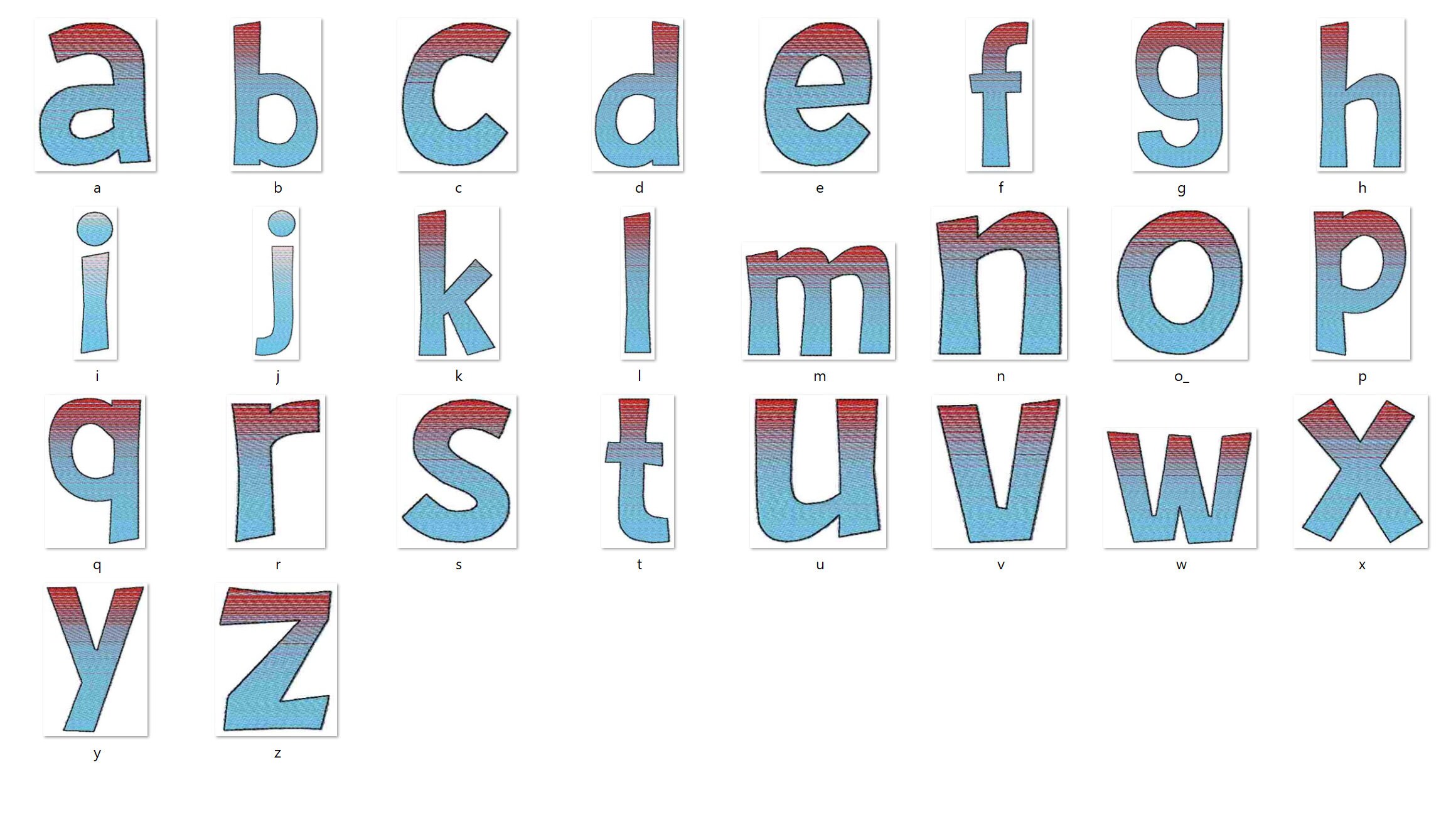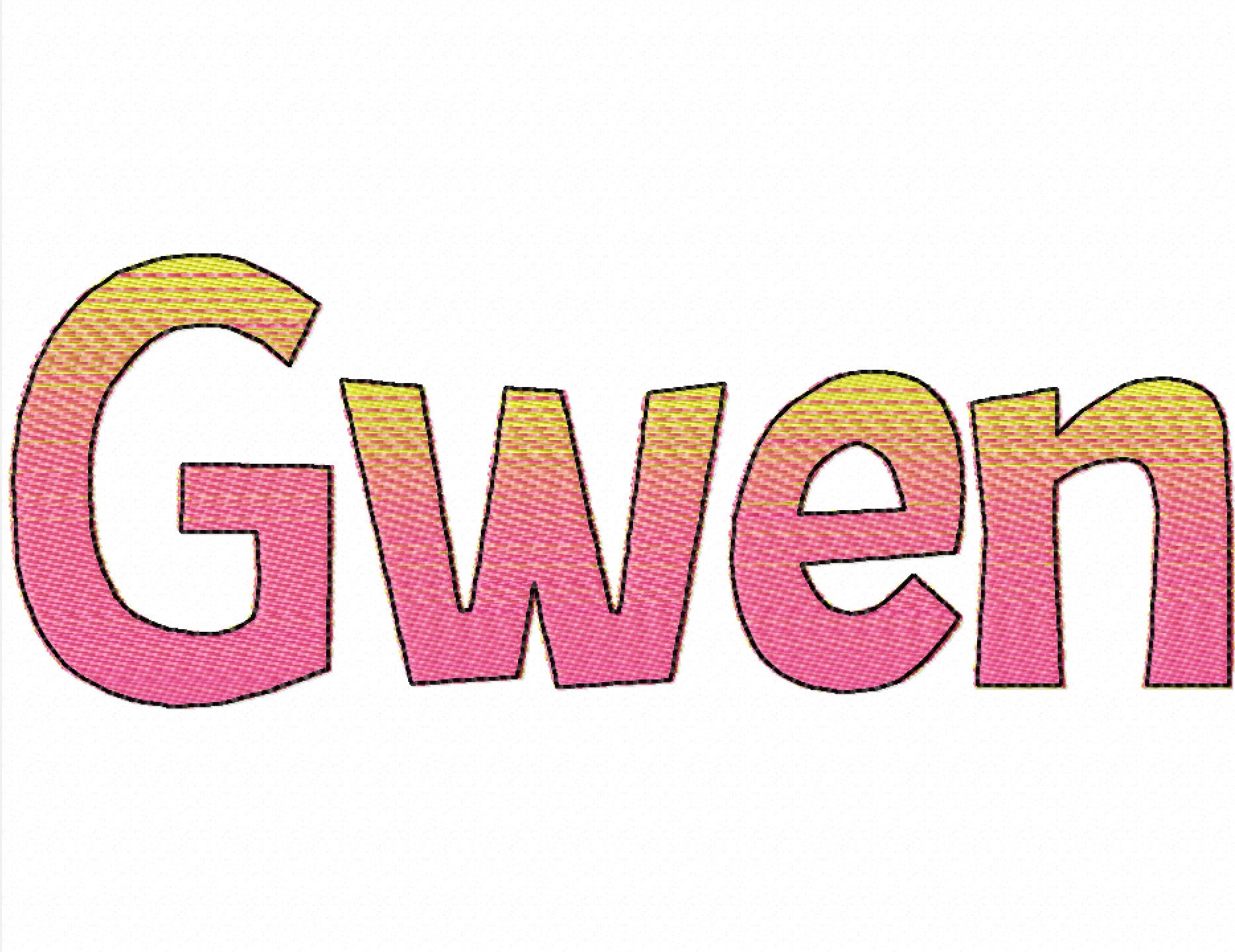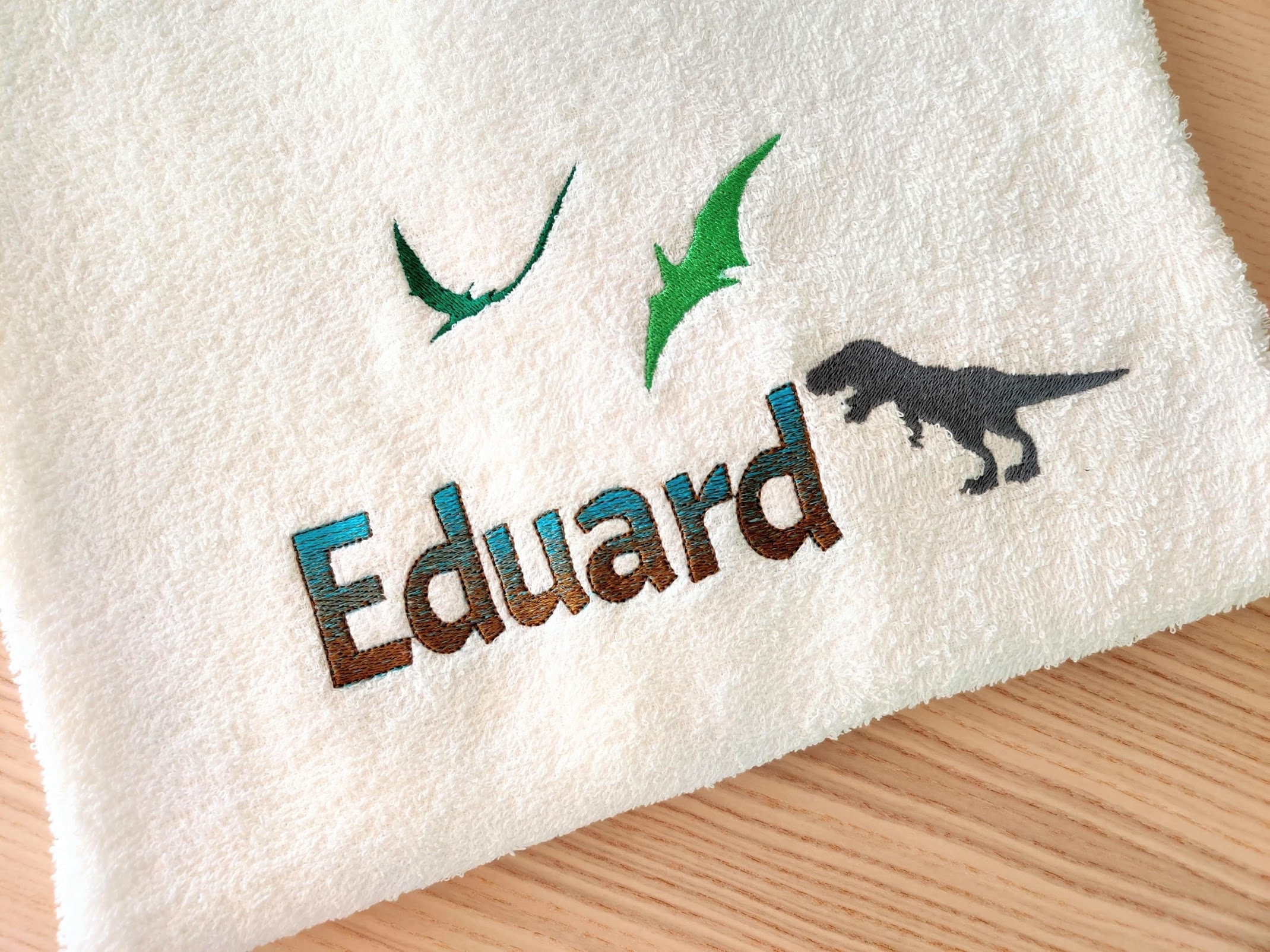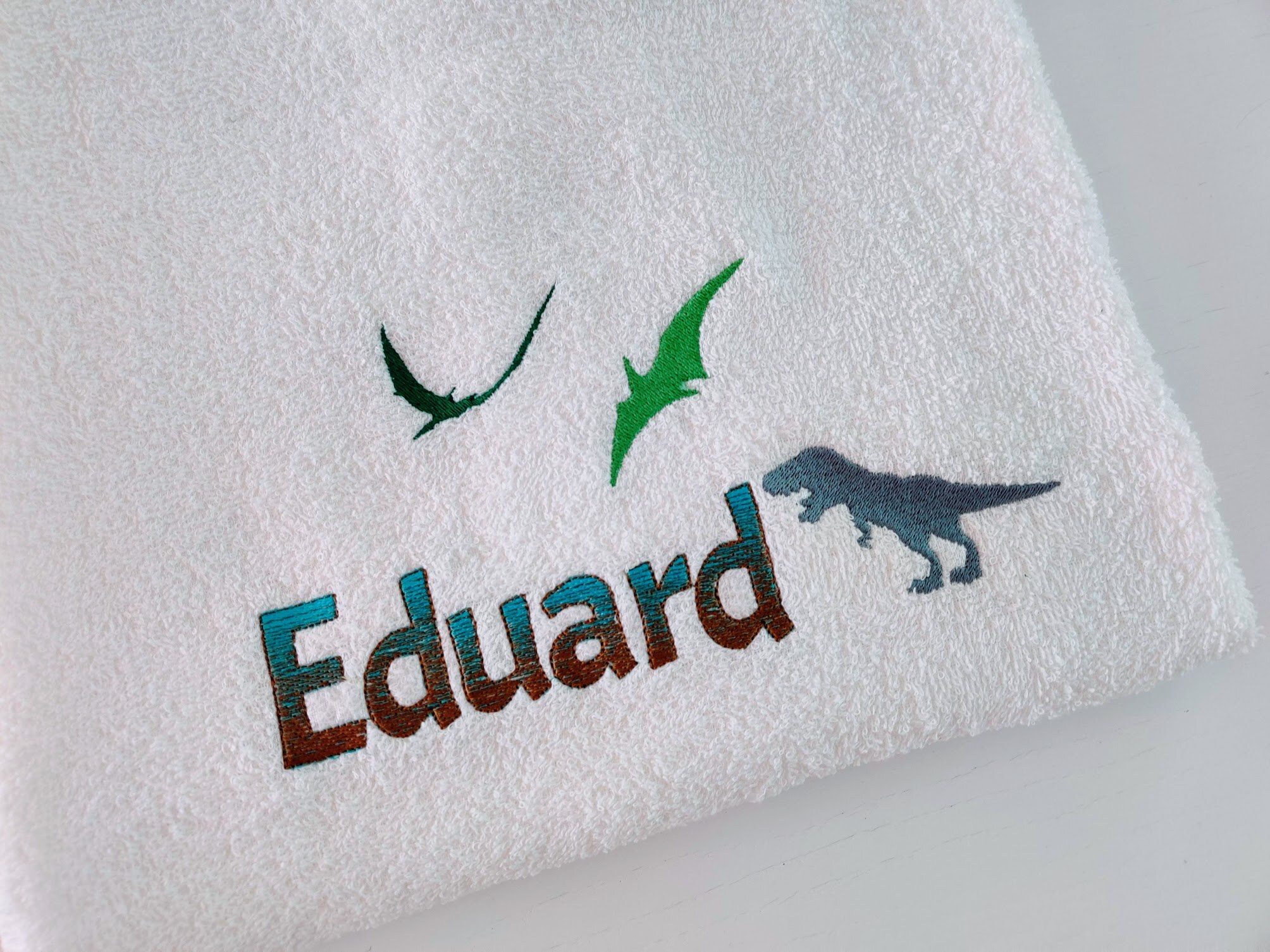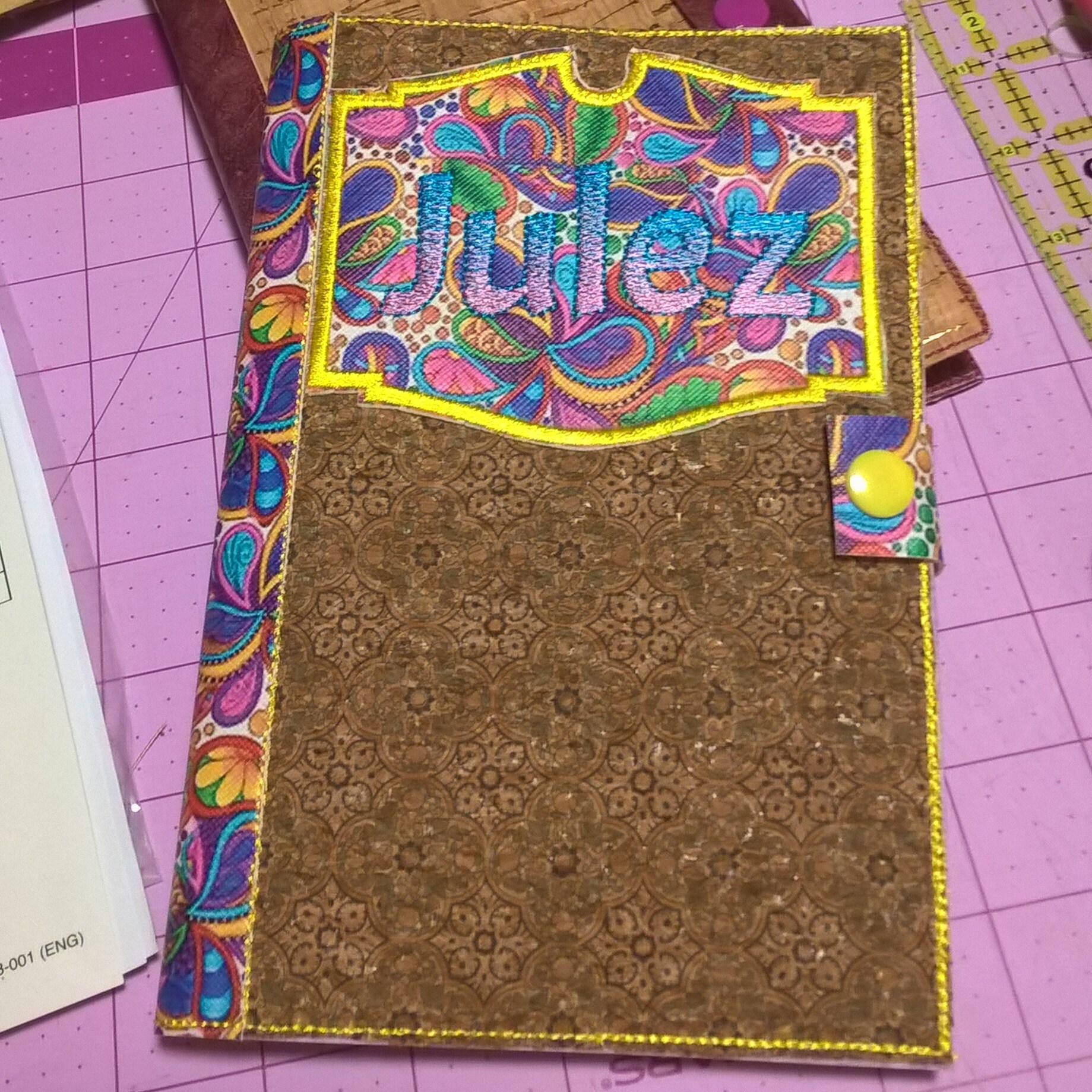
Iridescent 2 Color block Monogram FONT alphabet machine embroidery designs assorted sizes awesome gradient ombre font, NO special thread, BX included
No special thread is required! It looks incredible! For this font, regular threads are used (not multi-colored).
The letters are stitched from usual threads, just used two colors to make this nice Iridescent effect!
No special thread is needed. The pattern creates this amazing effect all by itself. Iridescent comes thanks to the design, it has 2 colors. While stitching on one side of the letter it stitches more with one color and on the other side stitches with the opposite color.